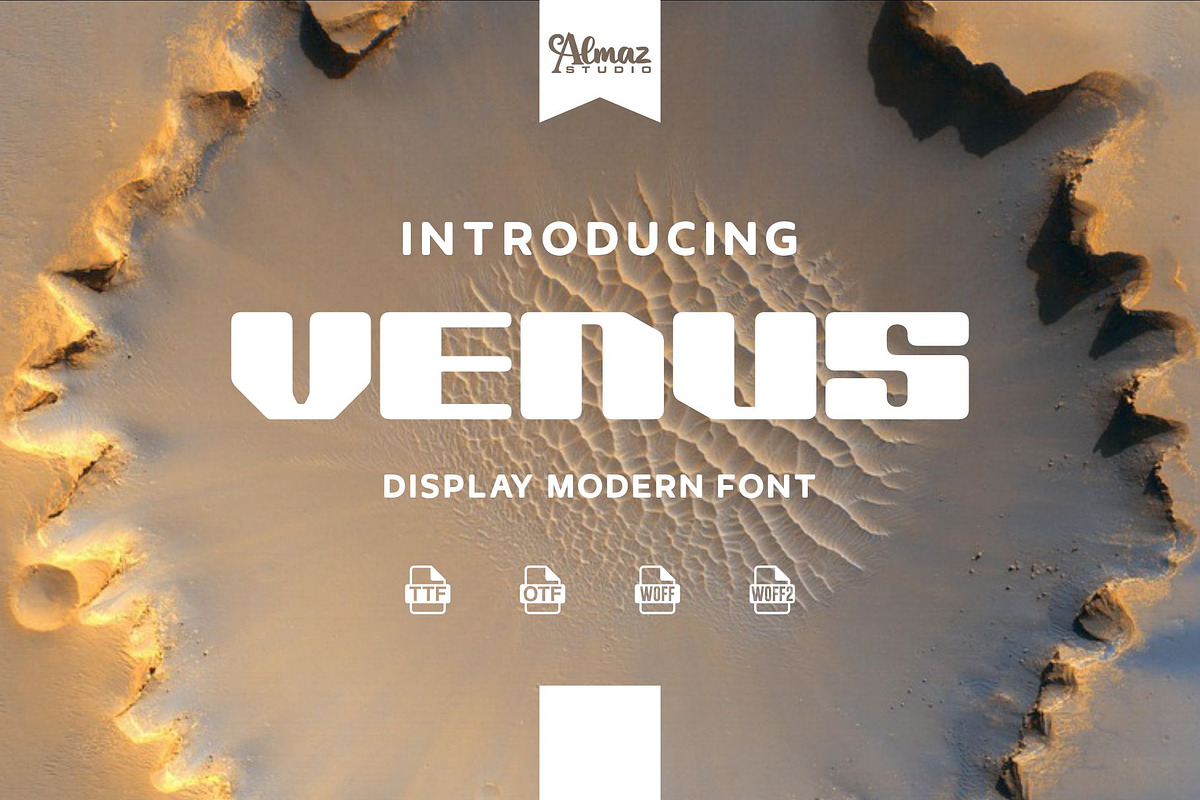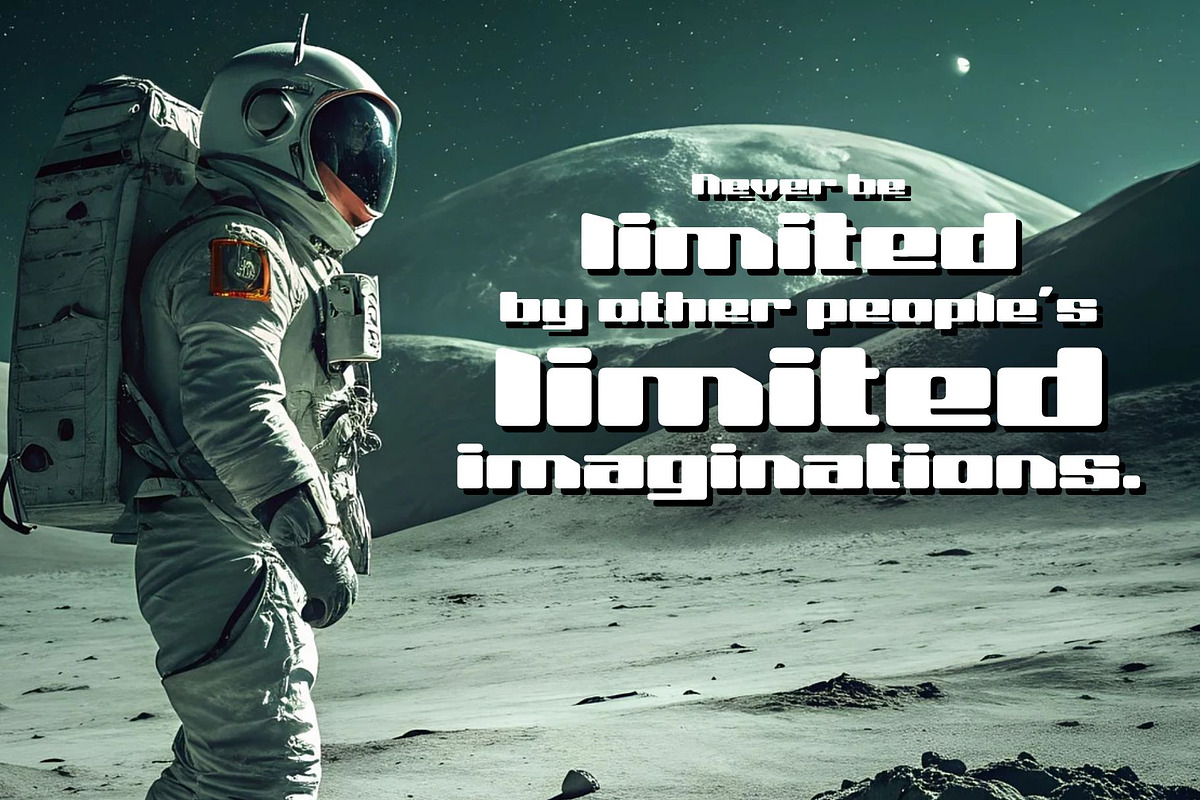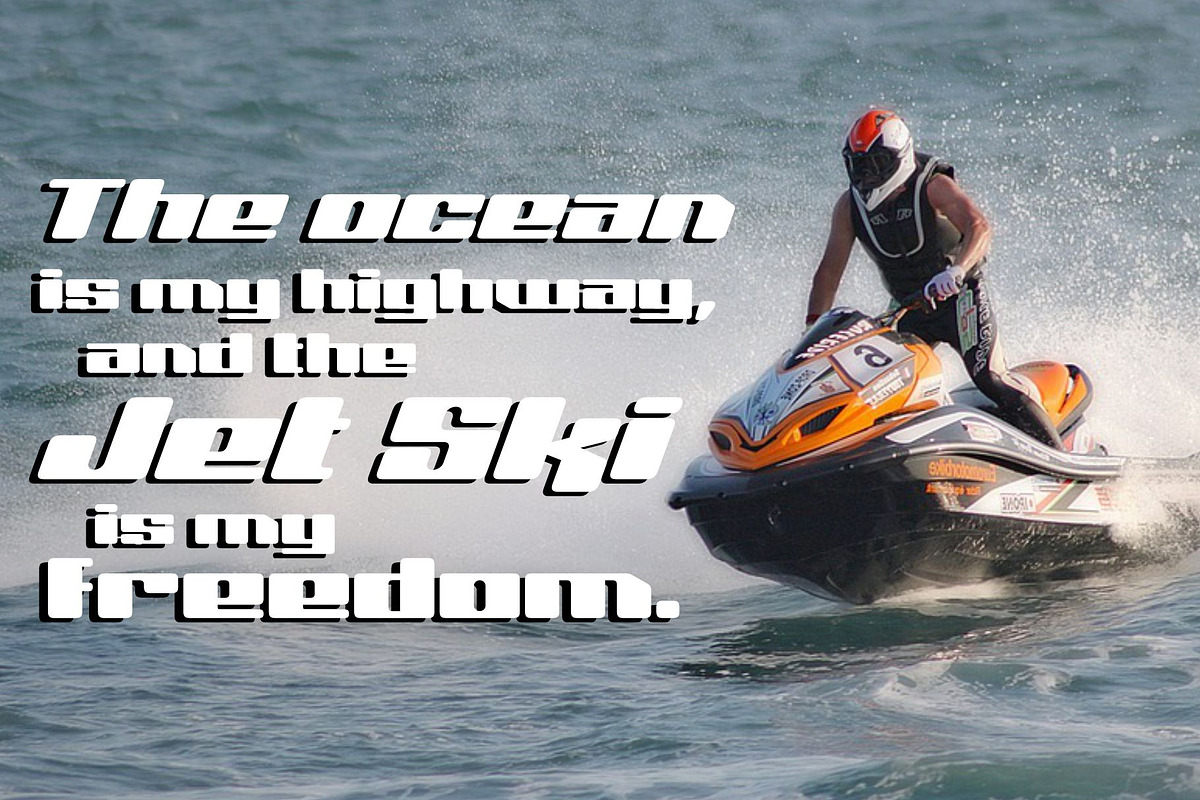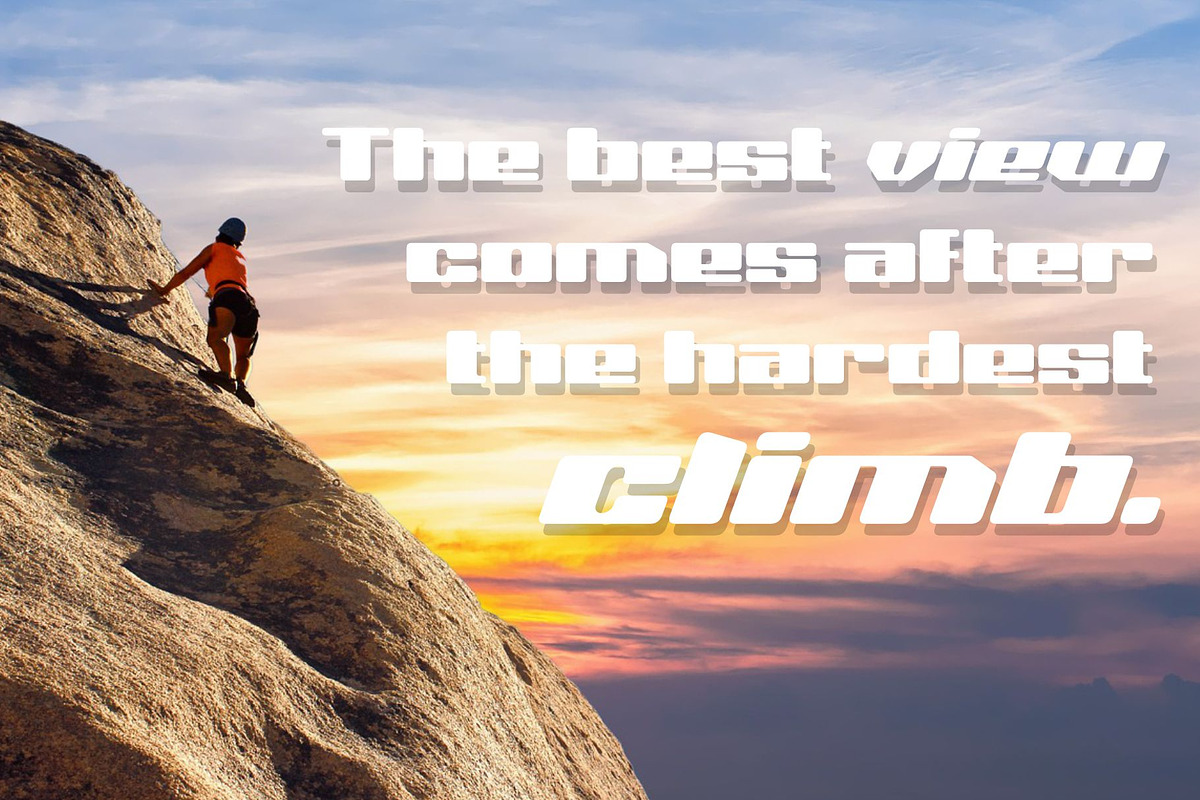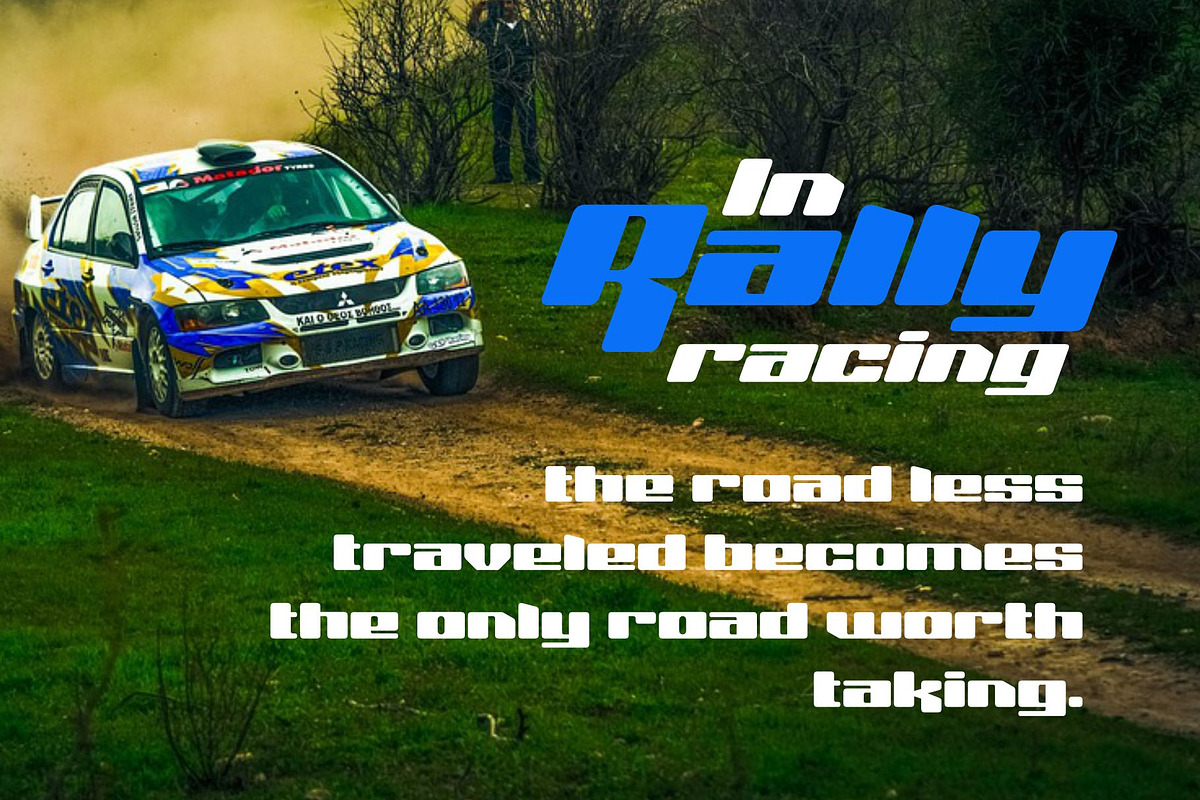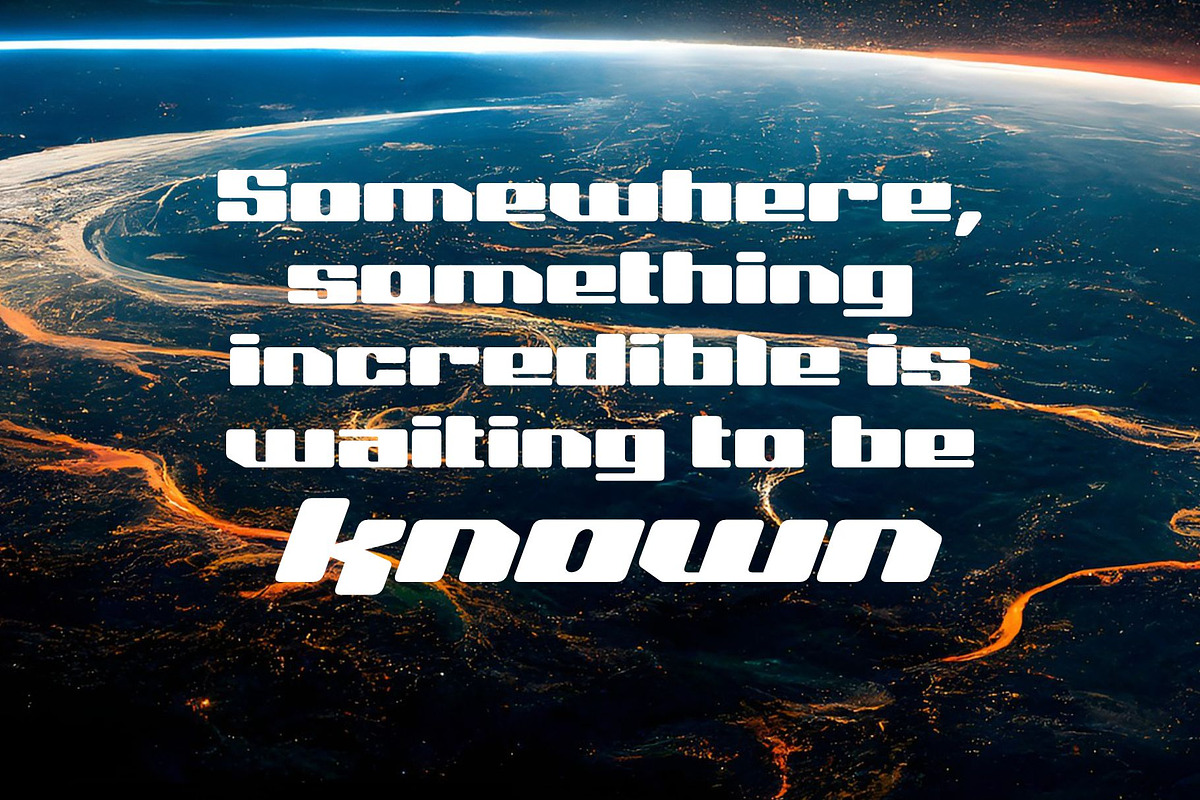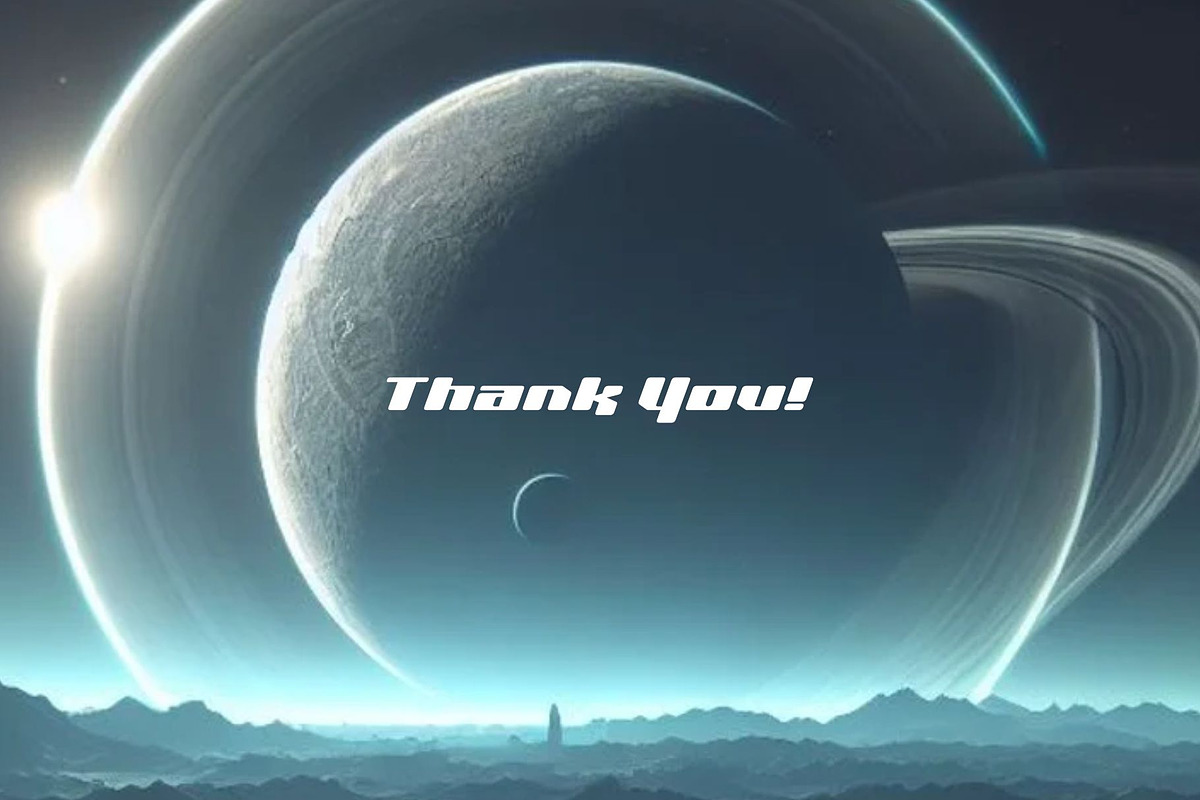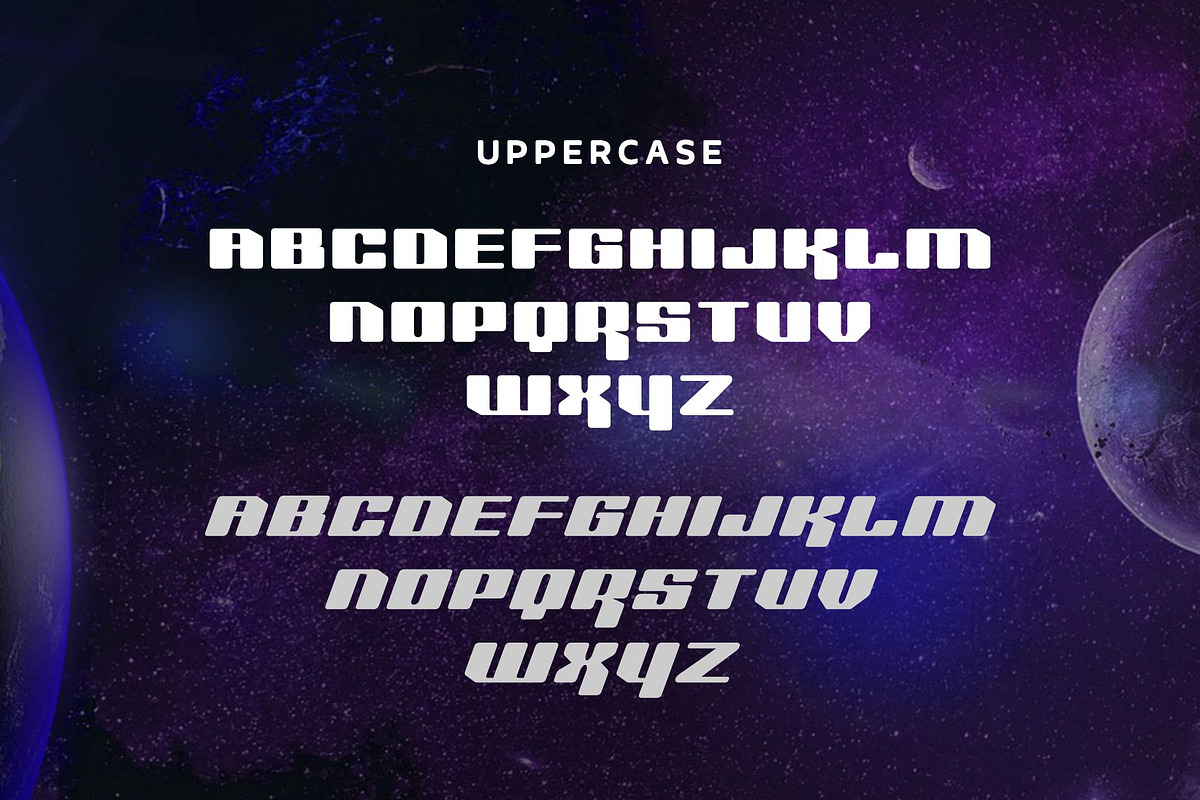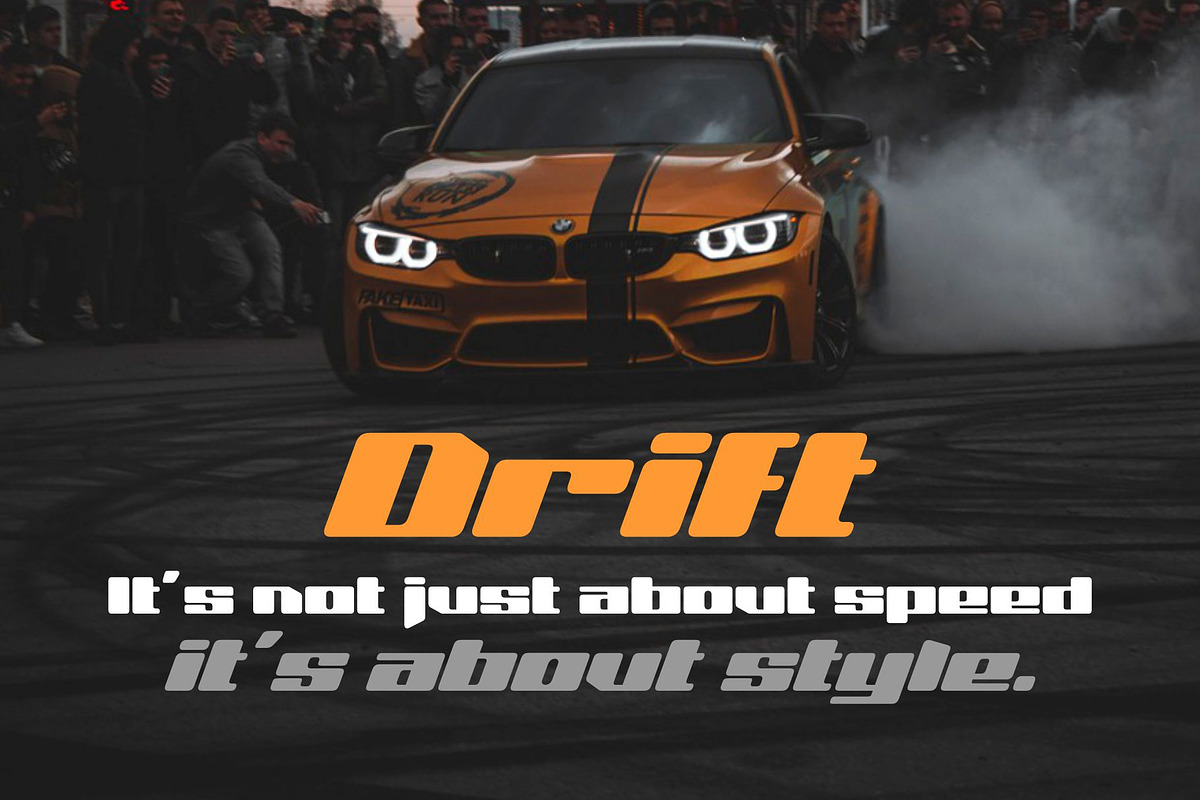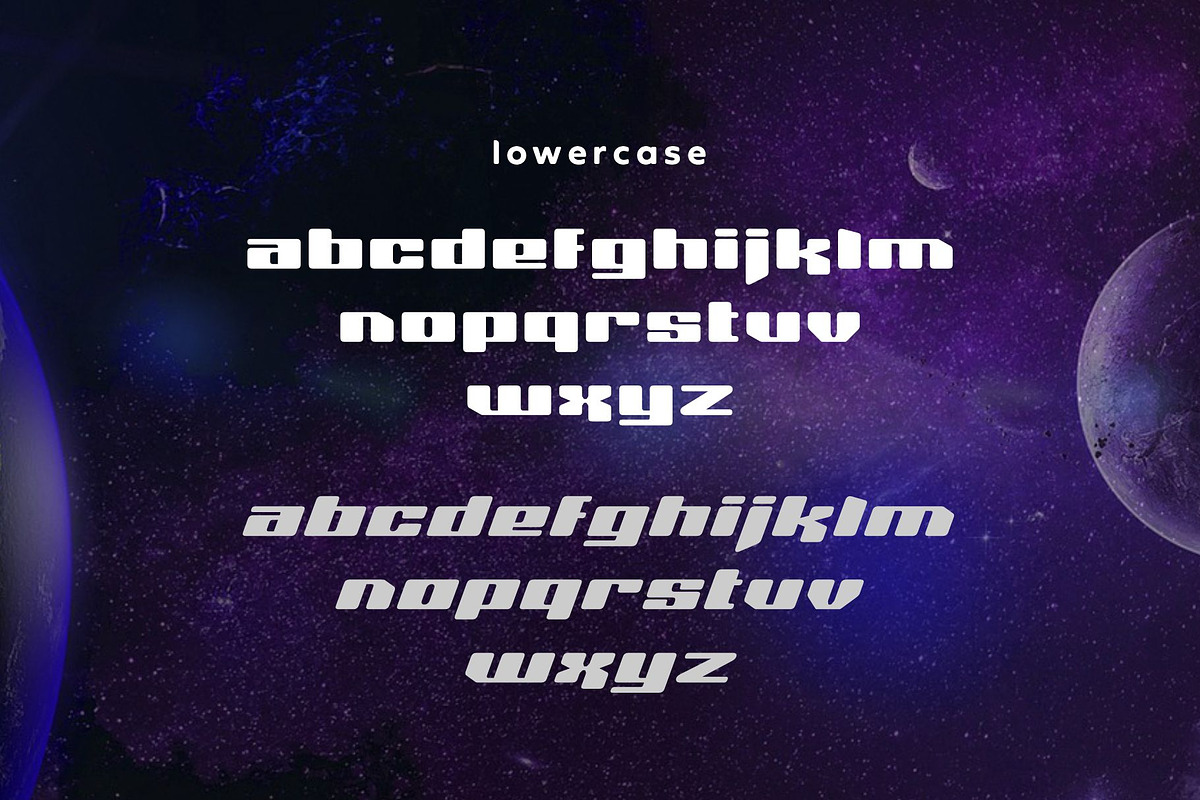
Venus
Venus is a bold and futuristic display font that brings a strong, modern edge to your designs. Featuring solid geometric shapes with distinctive angled cuts, Venus delivers a high-impact visual presence that’s perfect for technology, sports, automotive, space-themed projects, and bold branding statements. Its clean yet powerful style makes it stand out in headlines, posters, logos, and digital interfaces, while maintaining excellent readability.
Venus ensures sharp, consistent results across both print and screen. Take your designs to the next level with the modern strength and cosmic flair of Venus.